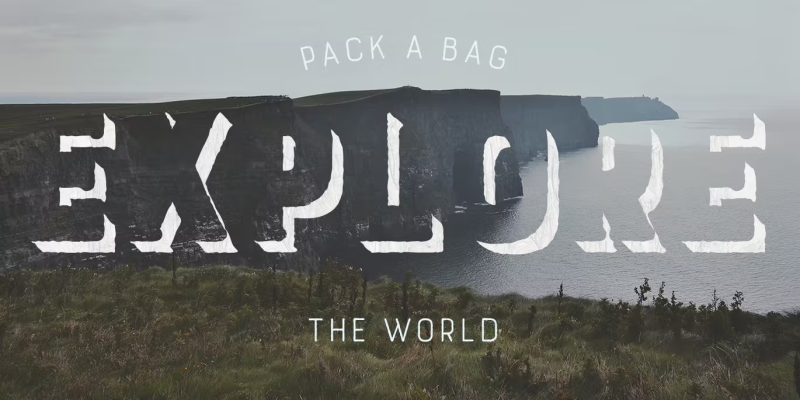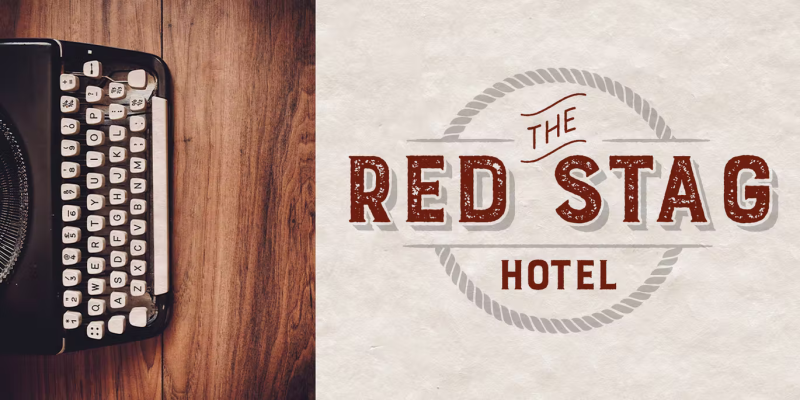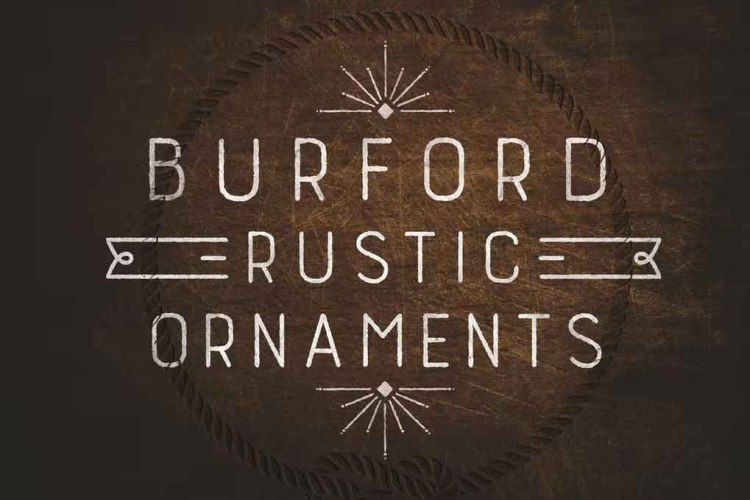
Burford Rustic Extras Font
Burford Rustic is the weathered and textured alternative to the Burford Family. It works the same way as Burford as a layer-based font family, but with some style variations and new layering options. It includes 20 font files, starting with four texture variations from Black, Bold, Light to Ultralight. It also includes and Outline and two Inline Weights. Additionally it offers three line weights (light, medium and bold) for top layering options. There are two extruded fonts and two drop shadow fonts, all either in a solo version and set with Burford Rustic Black for users not using Opentype programs. For users that have Opentype programs, such as Adobe Illustrator, Photoshop, InDesign, Microsoft Publisher and Quark, each font also comes with a set of Stylistic Alternatives for letters A C E F G H P Q R. There are two versions of each letter, and by using contextual alternatives, no two letters next to each other will be the same.
Burford Rustic Basic package is created for users who don’t have access to programs with Opentype capabilities and are unable to use the layering effect. Burford Rustic can still be a powerful tool as each font can also be used on it’s own. It includes every font file not needed for the layering effect.
The Burford Rustic Ornaments uses all basic keyboard characters – around 100 total elements per set. They are designed to go specifically with Burford Rustic and use the same textured edge. The set includes: banners, borders, corners, arrows, line breaks, catchwords, anchors and many more!
Where Burford Rustic Extras Font works best
Reports, white papers and book interiors hold the eye longer when the text face has real serifs; Burford Rustic Extras Font keeps that rhythm without looking old-fashioned.
Food, spirits and cosmetics brands lean on serif wordmarks to suggest age and care. Burford Rustic Extras Font gives that signal at wordmark size.
Set Burford Rustic Extras Font for the body of an award or a diploma and keep the recipient name in a script; the pairing is what makes a document feel official.